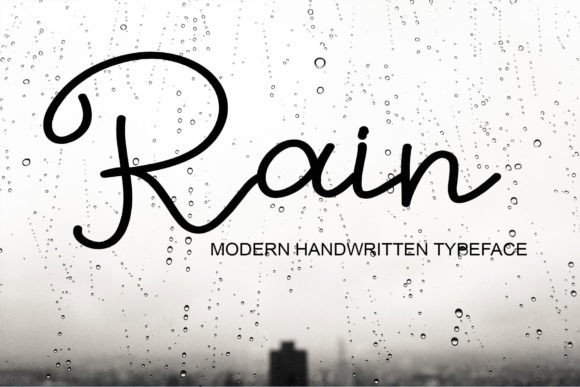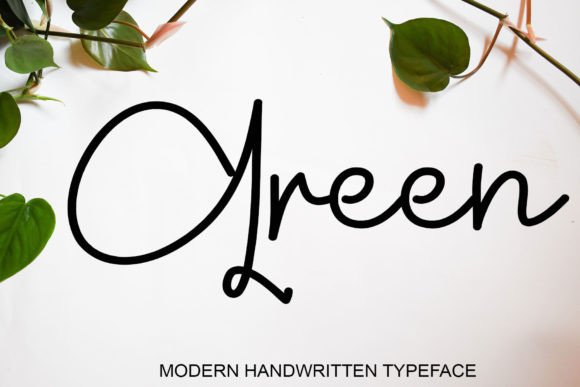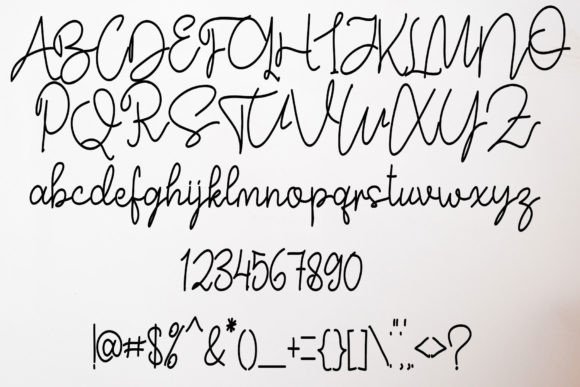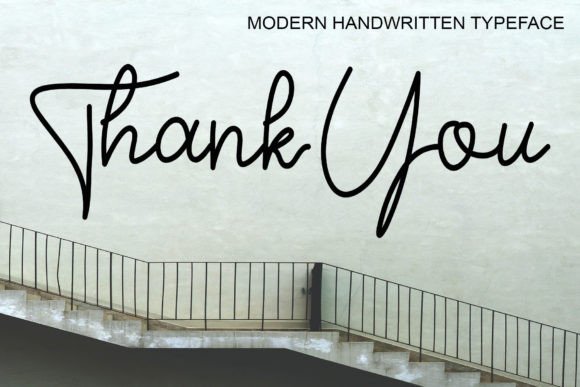
Dilla Font: Elevate Your Designs with Elegance and Timeless Style
Are you on the hunt for a font that exudes elegance, sophistication, and a touch of timeless charm? Look no further than Dilla Font, a stunning flowing handwritten font that is sure to capture your heart. With its incredibly distinct and classic style, Dilla is the perfect addition to your favorite projects, allowing you to create spectacular designs that stand out from the crowd.
The Essence of Dilla Font
Dilla Font is a beautiful, handcrafted typeface that boasts an elegant touch, making it an ideal choice for designers and crafters seeking to add a touch of refinement to their work. Its flowing script and classic lines evoke a sense of nostalgia, while its unique character ensures that your designs remain fresh and modern.
Key Features of Dilla Font
- Elegant and Refined: Dilla Font features a sophisticated and elegant design, perfect for projects that require a touch of luxury and refinement.
- Flowing Handwritten Style: The font’s flowing script and connected letters create a beautiful, handcrafted feel that adds a personal touch to your designs.
- Timeless Appeal: Dilla Font’s classic lines and traditional feel ensure that your designs remain timeless, avoiding the fleeting nature of trendy fonts.
- Distinct Character: The font’s unique character and elegant touch set it apart from other fonts, making it an excellent choice for designers seeking to create distinctive designs.
- Versatile: Dilla Font is suitable for a wide range of projects, from branding and advertising to packaging and digital designs.
Use Cases for Dilla Font
Dilla Font’s versatility and elegance make it an excellent choice for various design projects, including:
- Logo Design: Create stunning logos that exude elegance and sophistication with Dilla Font.
- Branding and Identity: Use Dilla Font to develop a consistent brand identity that reflects your company’s values and personality.
- Packaging Design: Add a touch of luxury and refinement to your packaging designs with Dilla Font.
- Digital Designs: Use Dilla Font to create beautiful and engaging digital designs, such as social media graphics, website headers, and more.
- Stationery and Print Design: Elevate your stationery and print designs with Dilla Font’s elegant and classic style.
Tips for Using Dilla Font Effectively
To get the most out of Dilla Font, consider the following tips:
- Pair with Contrasting Fonts: Combine Dilla Font with contrasting fonts to create visual interest and hierarchy in your designs.
- Experiment with Colors: Try pairing Dilla Font with different colors to find the perfect combination that suits your design.
- Pay Attention to Spacing: Ensure that you leave sufficient spacing between letters and lines to maintain the font’s elegance and readability.
- Use it Sparingly: Use Dilla Font judiciously to avoid overwhelming your design. It’s often best to use it as a headline or accent font.
| Author | Canden Meutuah |
Dilla Font is a beautiful, elegant, and timeless handwritten font that is sure to elevate your designs to new heights. With its flowing script, classic lines, and unique character, Dilla Font is the perfect choice for designers and crafters seeking to add a touch of sophistication and refinement to their work. Whether you’re creating logos, branding materials, packaging designs, or digital designs, Dilla Font is an excellent addition to your font library.